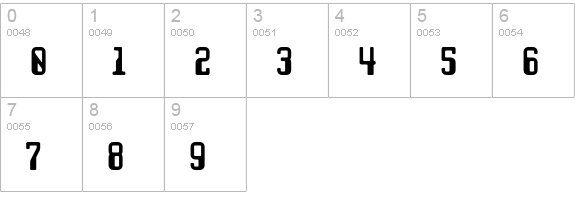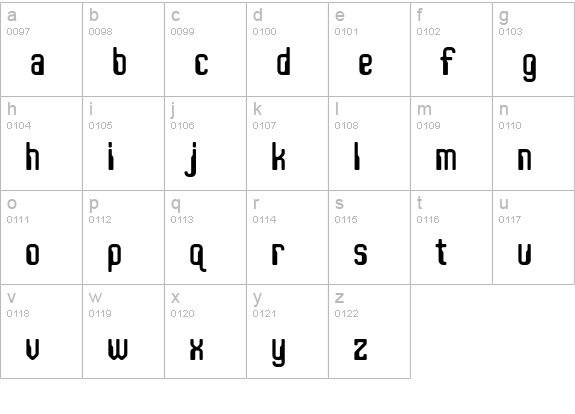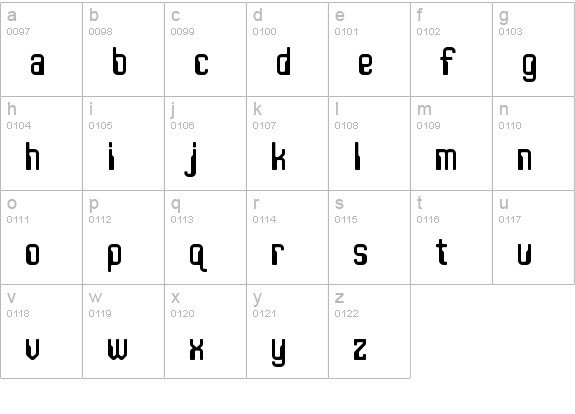
JLS Space Gothic-C NC font is a captivating and unique typeface that effortlessly blends elements of futurism and gothic aesthetics. Its sleek and contemporary appearance is complemented by a touch of darkness and mystery, making it perfect for projects that require a bold and edgy vibe. With its sharp lines and intricate details, JLS Space Gothic-C NC font captures the essence of outer space, evoking a sense of otherworldliness. This font is versatile and can be used for a wide range of design purposes, including logos, headlines, posters, and more. Its clean and well-defined characters ensure readability, while its distinct personality adds a touch of intrigue to any composition. One of the most appealing aspects of JLS Space Gothic-C NC font is that it is freely available to download at FontsMarket.com. This allows designers and enthusiasts alike to access this stunning typeface without any restrictions, making it an excellent choice for both personal and commercial projects. Whether you're a professional designer or an aspiring creative, JLS Space Gothic-C NC font offers a unique and captivating typographic solution that will undoubtedly elevate your designs to new heights. Embrace the allure of the unknown and let JLS Space Gothic-C NC font take your designs on an exhilarating journey. Download it for free at FontsMarket.com and unlock a world of endless possibilities in typography.